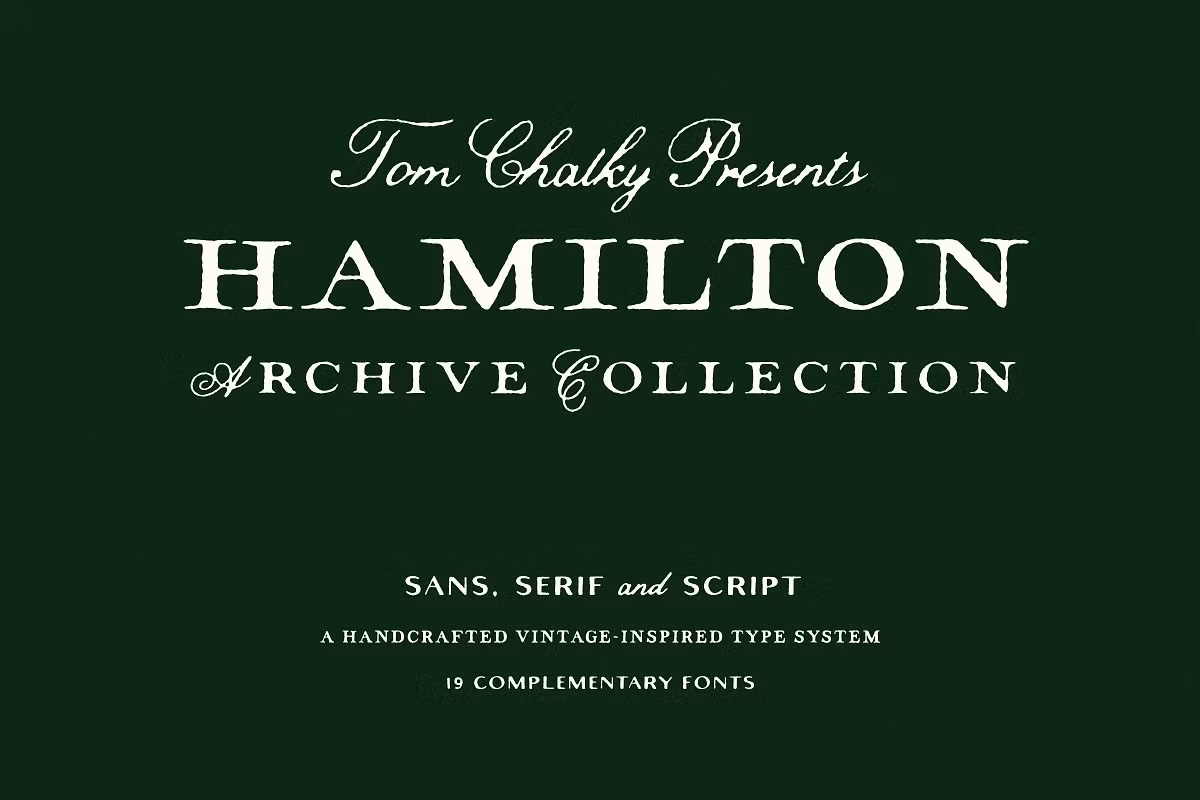
The Hamilton Archive Font Collection Free Download is a versatile and elegant collection of fonts, perfect for a wide range of design projects. With a mix of serif and sans-serif styles, this collection offers a sophisticated and timeless design for logos, branding, editorial layouts, invitations, and more. The Hamilton Archive fonts are carefully crafted to bring a professional and polished look to your typography, whether you're working on modern business materials, vintage-inspired designs, or high-end creative projects. Please note, for commercial use, a license purchase is required. However, you can easily download the Hamilton Archive Font Collection Free Download for free for personal use and explore its potential. Download the Hamilton Archive Font Collection Free Download today and elevate your designs with this elegant, versatile font collection.